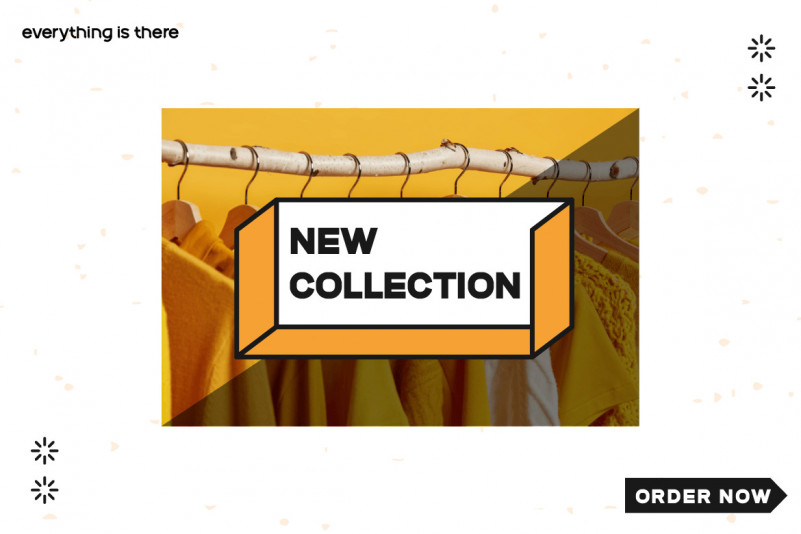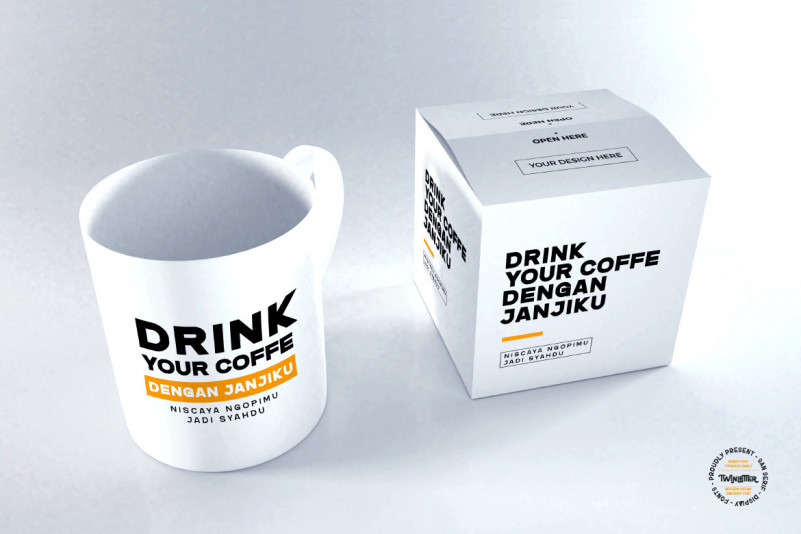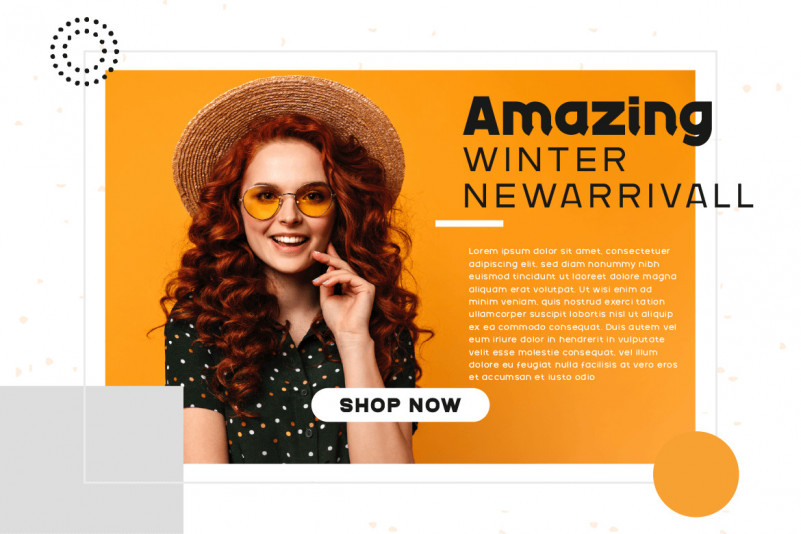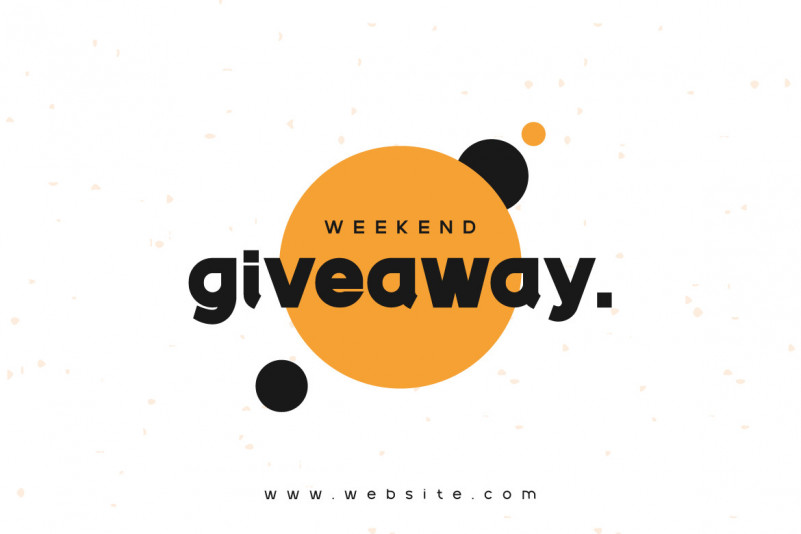
Gadeg Font
Gadeg Sans Serif Font
This is a special font with a unique and special shape adopts a modern minimalist style with a simple and elegant impression.
Gadeg Sans Serif Font is perfect for a wide variety of design projects, sporting events, branding, banners, posters, movie titles, food and beverage, technology, quotes, clothing, logotypes, and more.
Of course, by using this font your various design projects will be perfect and amazing, because this font comes with a family of fonts, both for titles and subtitles and sentence text, start using our fonts for your amazing projects.